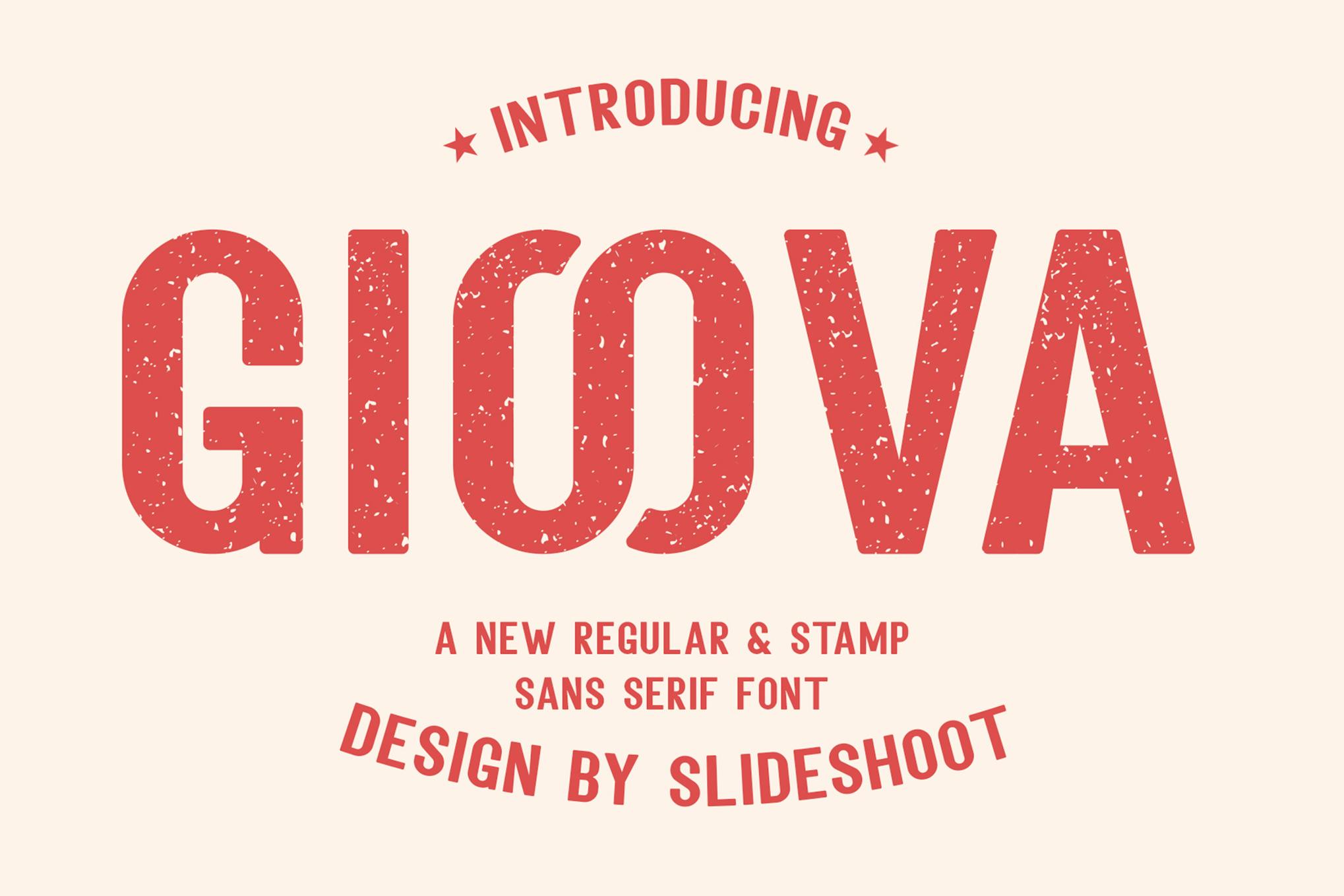
Gioova Sans Serif Font
Perfect for corporate branding, websites, mobile apps, editorial layouts, presentations, and user interfaces.
The Gioova Sans Serif Font excites designers with its clean, modern lines and versatile geometric style that brings clarity and professionalism to any project.
The Gioova Sans Serif Font Free Download is a sleek, contemporary typeface designed to enhance readability and elegance in digital and print media. Its balanced proportions and minimalistic shapes make it ideal for business branding, UI/UX design, and editorial content where clean typography is essential. Whether you’re designing a corporate website, app interface, or magazine layout, Gioova Sans Serif adds sophistication and simplicity.
One of the standout qualities of Gioova Sans Serif Font is its adaptability across various design needs. It performs excellently in both large headlines and body text, ensuring consistent readability and visual harmony. This makes it a preferred choice for modern brands that value clarity and style.
In branding, Gioova Sans Serif conveys professionalism, innovation, and trustworthiness. It pairs well with bold color schemes, minimalist layouts, and dynamic imagery, helping brands communicate a forward-thinking and clean image.
For digital projects, this font enhances websites, mobile applications, social media posts, and digital presentations with its crisp and legible forms. Its multiple weights and styles allow designers to build engaging and user-friendly interfaces effortlessly.